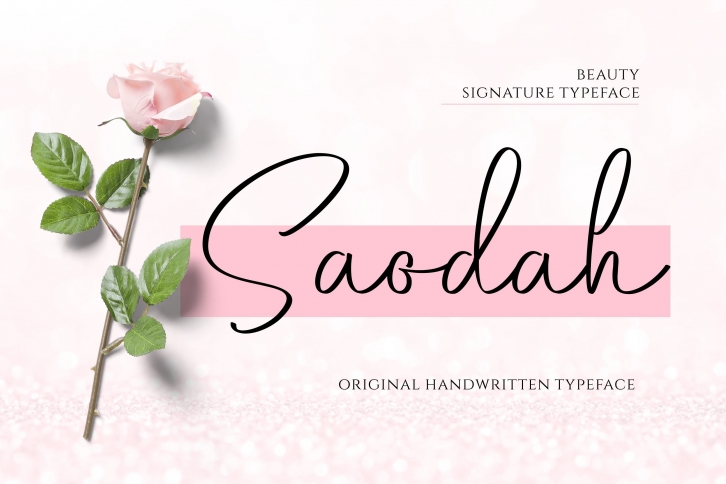
Saodah is a beautiful font that was designed by Fype Co. It's a great choice for designers and creatives who need such a font. It was released on May 6, 2020 and the file size is 16.95 MB. Saodah may give a more youthful, expressive and casual look to your project. It is a very beautiful, refined, elegant, and high-quality font.